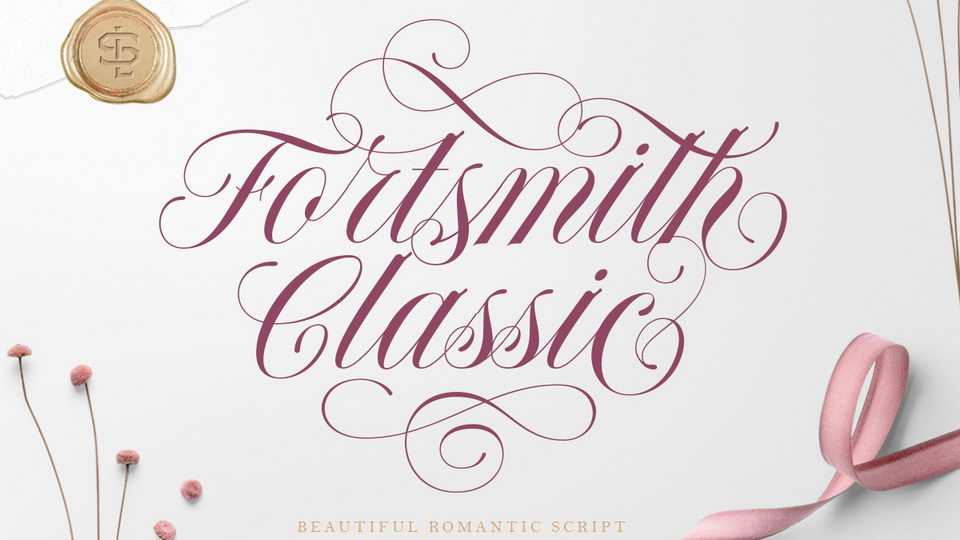
Download Forthsmith Classic font, a beautiful and classy script that has many swashes that allows you to create stunning lettering instantly. Forthsmith Classic font perfectly made to be applied especially in logo and other various formal designs.